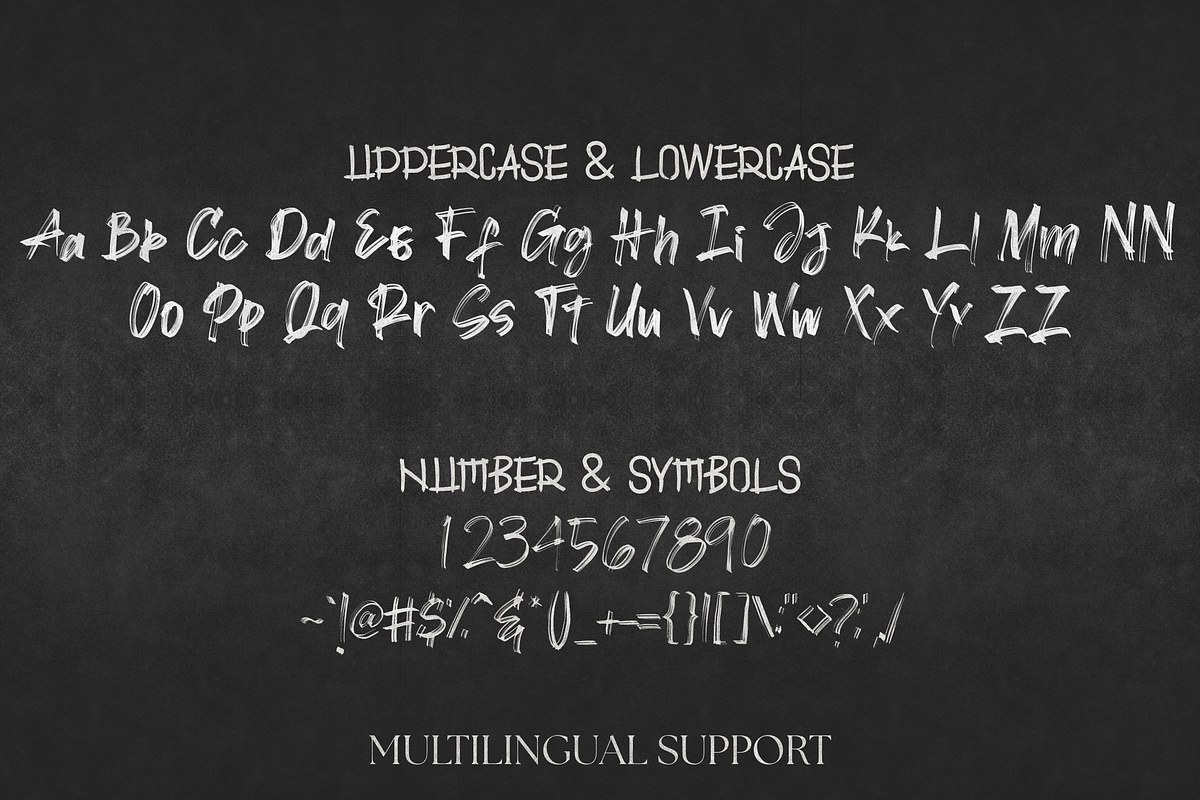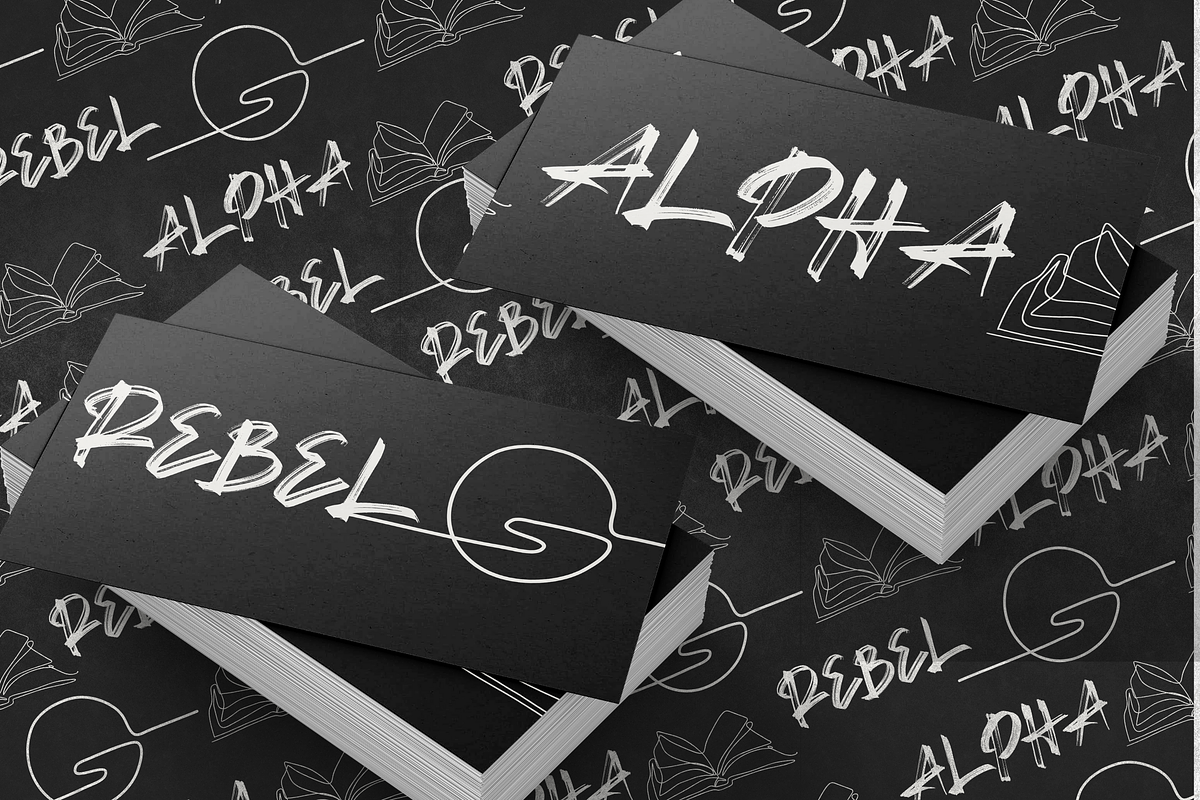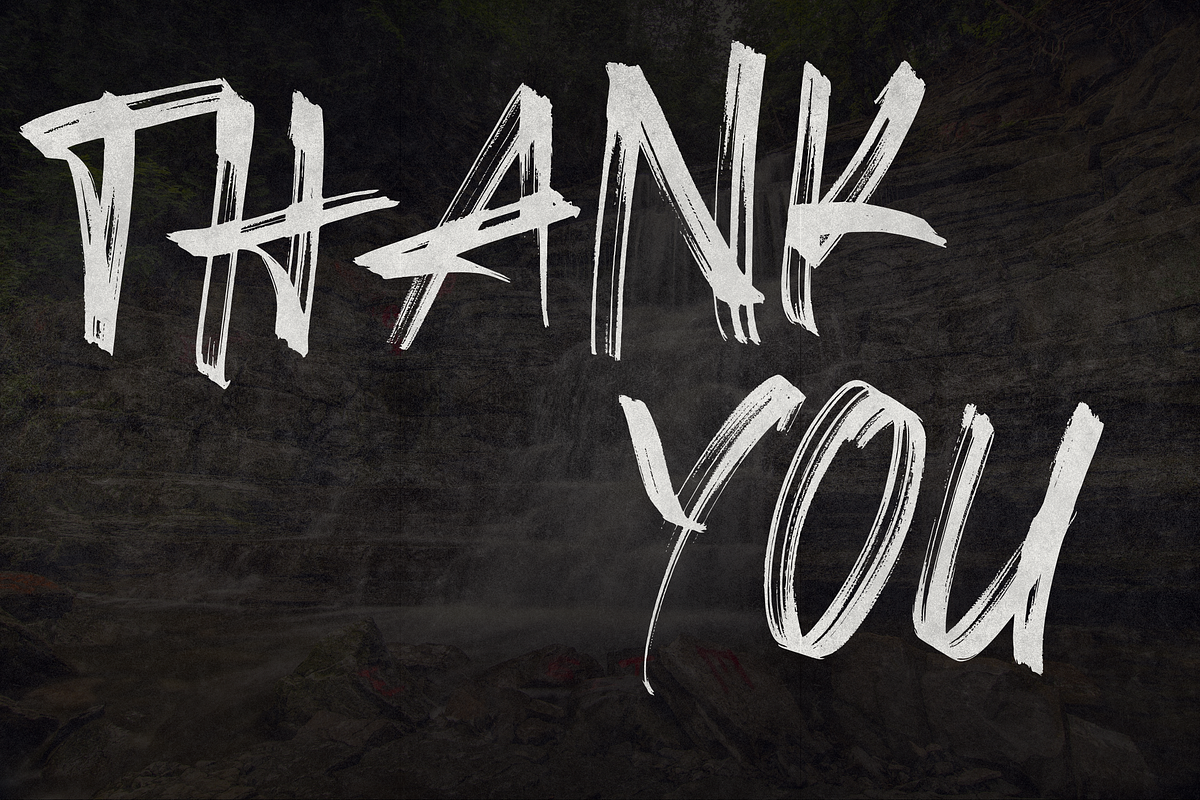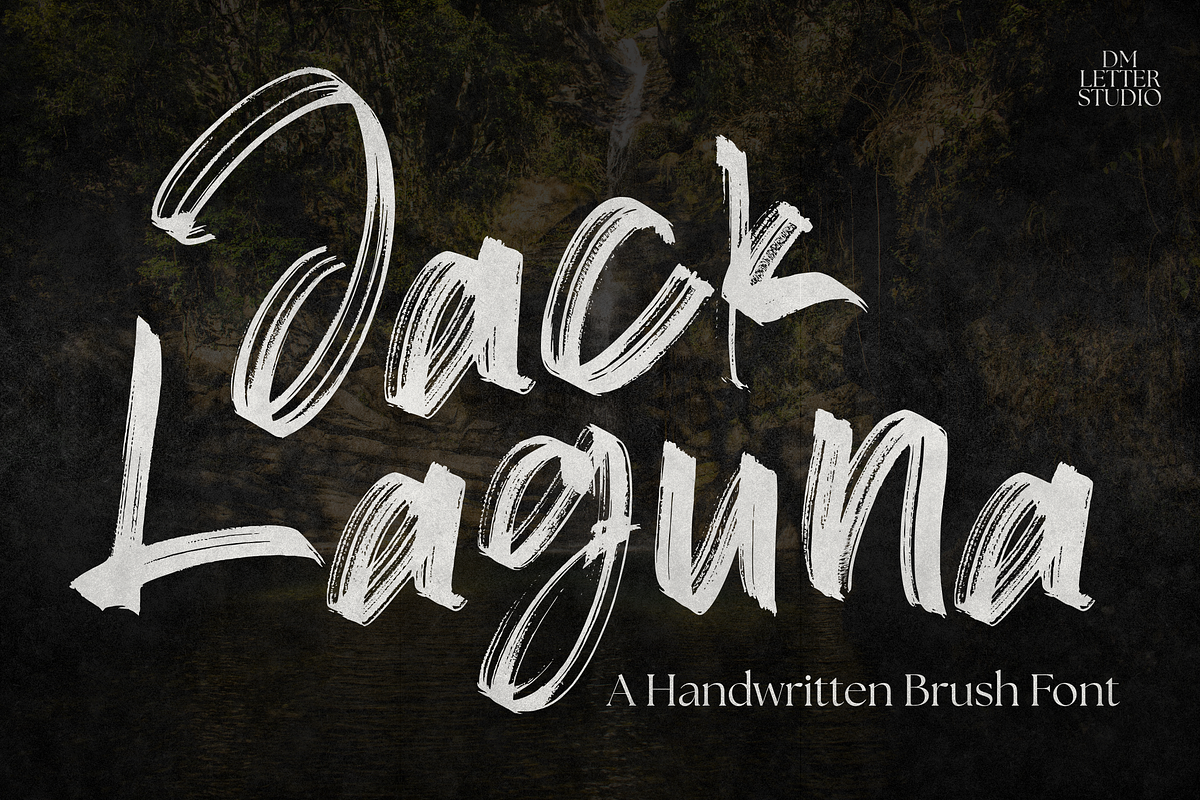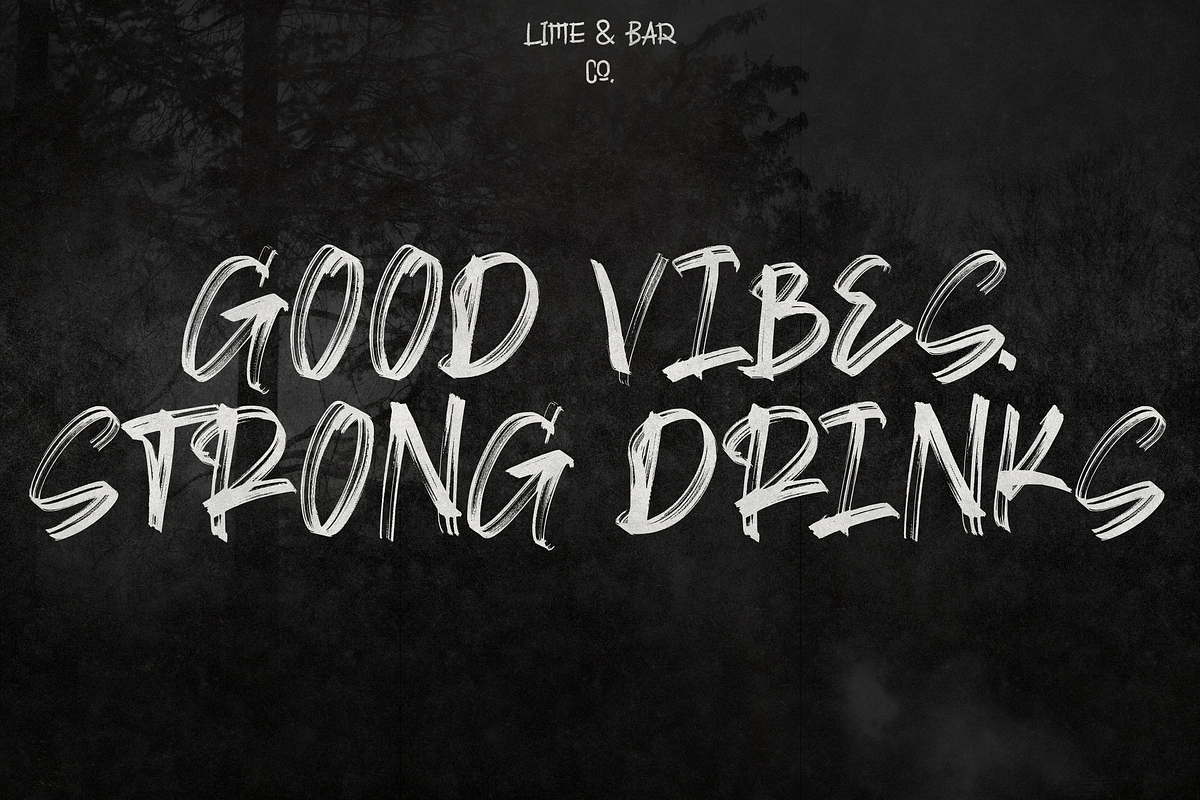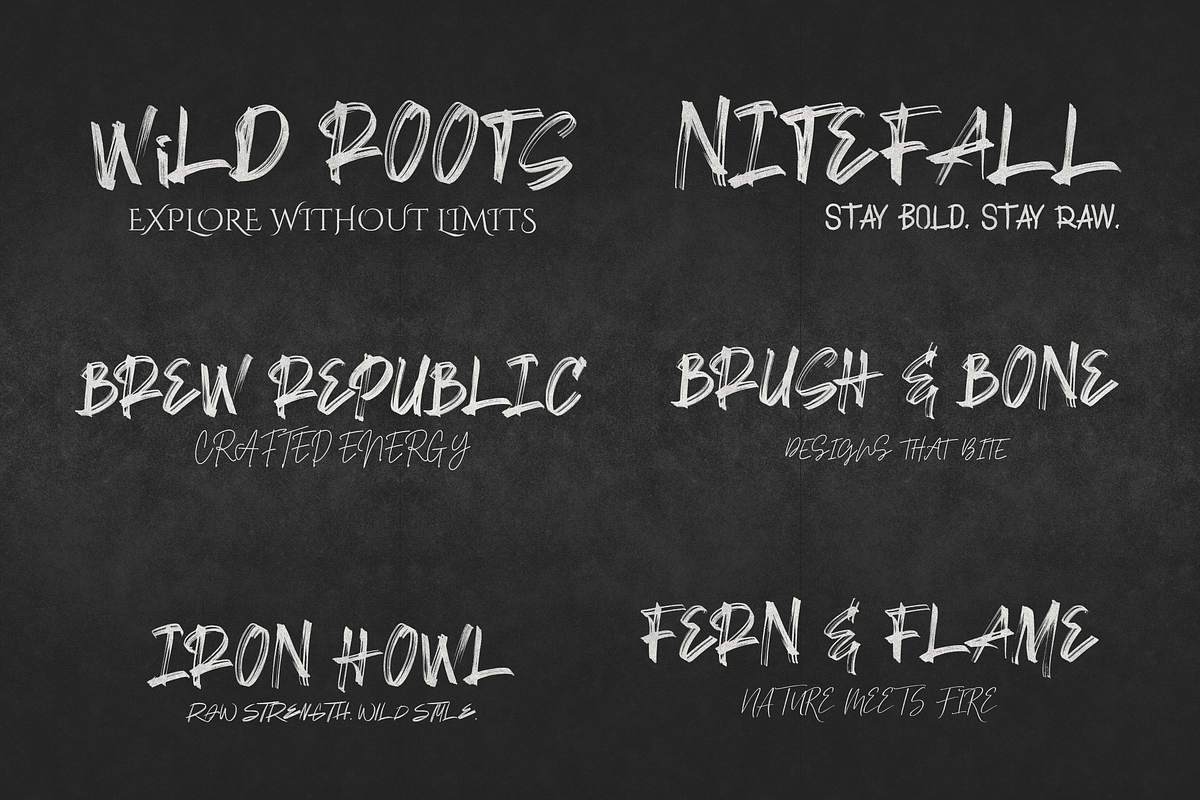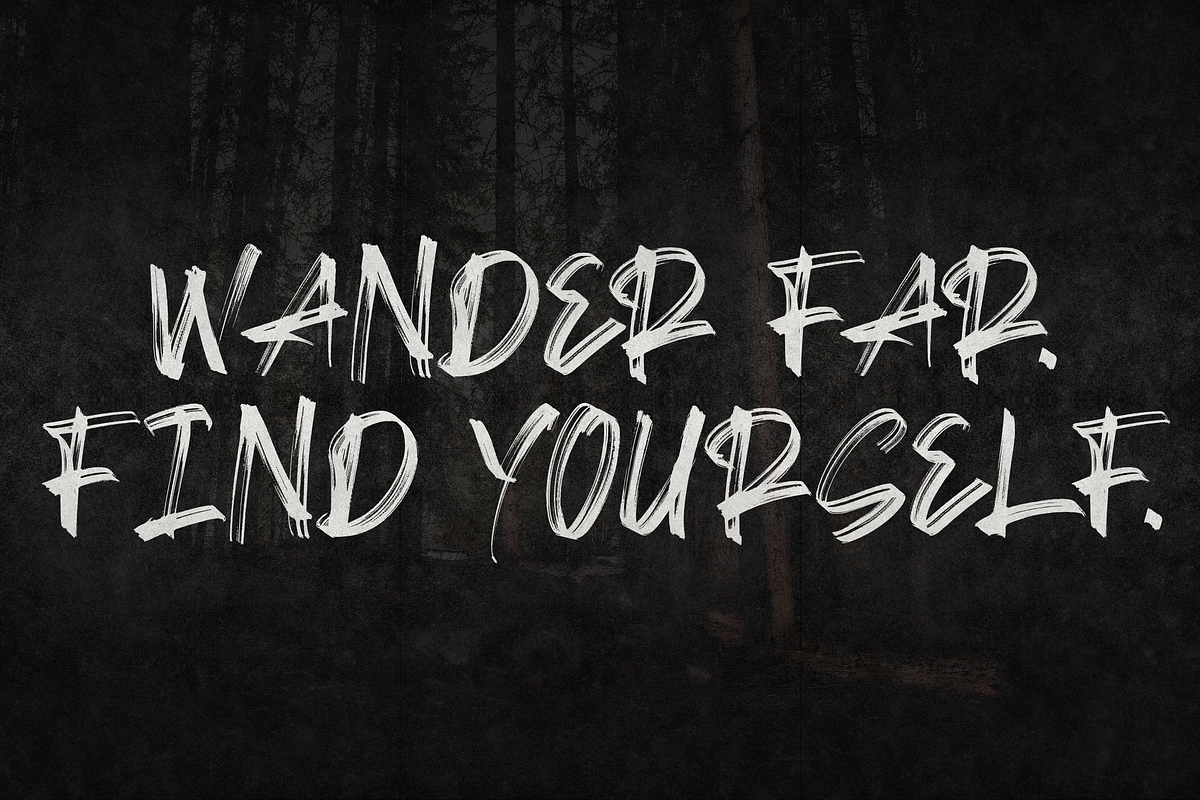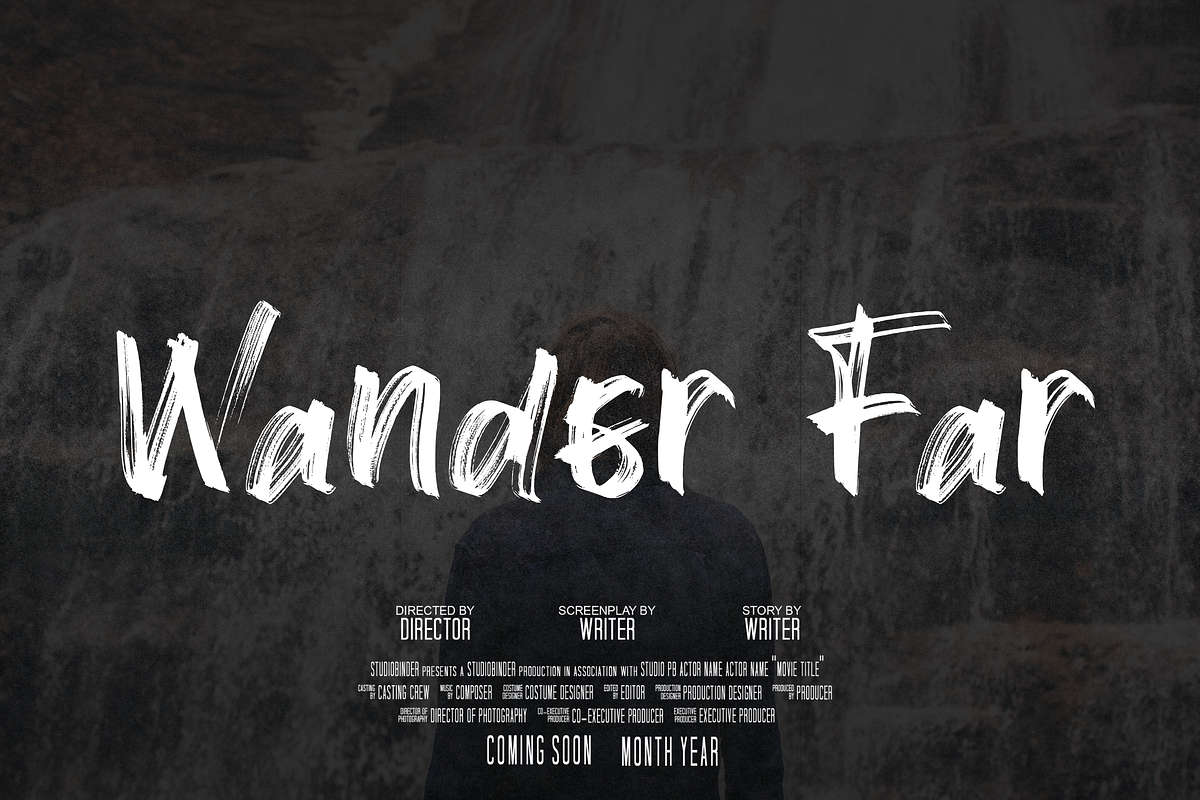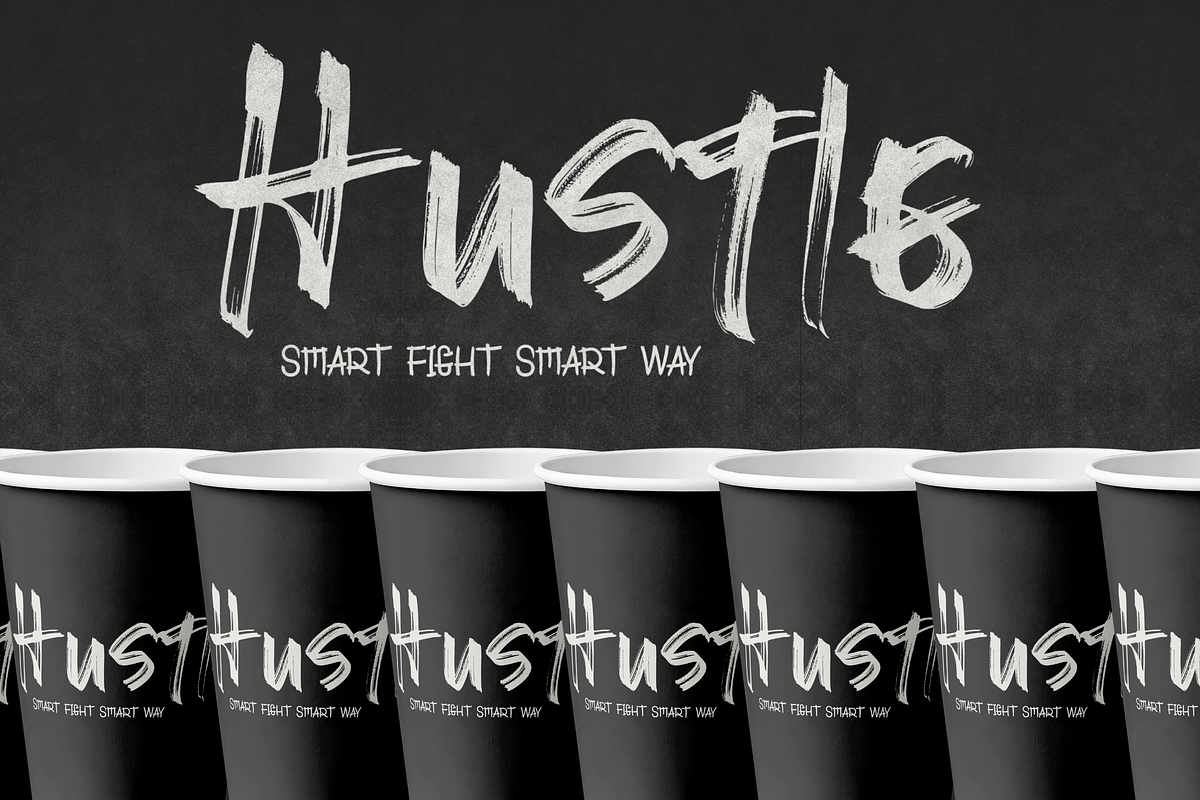
Jack Laguna – Handwritten Brush Font
Jack Laguna – A Handwritten Brush Font for Bold, Natural Branding
Raw strokes. Real impact. Jack Laguna makes your brand roar with handwritten energy.
Introducing Jack Laguna, a handwritten brush font that embodies wild elegance and organic power. Inspired by nature’s raw textures and the expressiveness of hand-painted strokes, this font is perfect for brands that want to balance luxury with an authentic, natural edge.
Each letter in Jack Laguna was crafted to mimic real brush strokes—creating dynamic movement, texture, and emotion in every character. Whether you’re designing a logo, crafting modern packaging, or branding a vintage-inspired product line, Jack Laguna adds a bold yet elegant flair that’s impossible to ignore.
Its natural irregularities make it perfect for sign painting, streetwear, editorial headlines, or personalized business branding. This font doesn’t whisper—it shouts with sophistication and style.
Why Choose Jack Laguna?
Authentic handwritten brush font with high-impact strokes
Ideal for modern, elegant, or vintage design aesthetics
Versatile for logos, apparel, labels, album covers, or brand identities
Works beautifully in both digital and print formats
Adds a luxury and rebellious edge to your visual content
Natural or organic product branding
Handmade or boutique product logos
Artistic posters, album art, and event flyers
Personalized stationery and wedding invitations
YouTube thumbnails or motivational quote designs